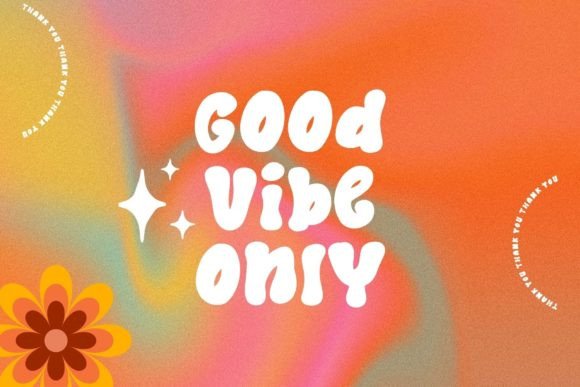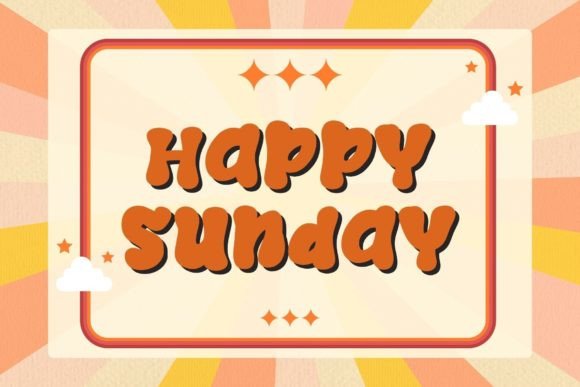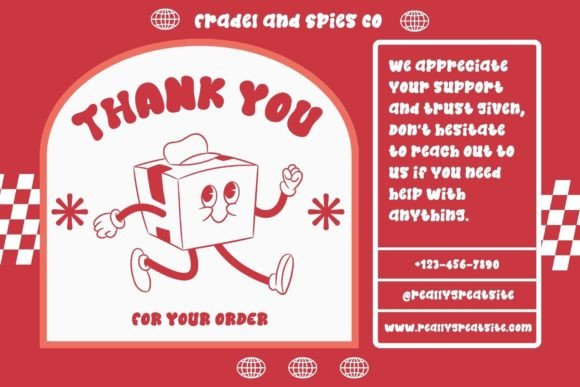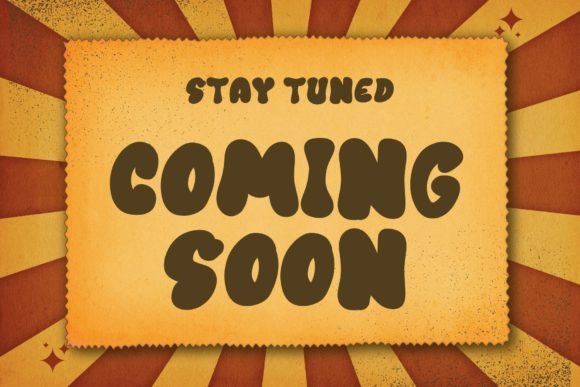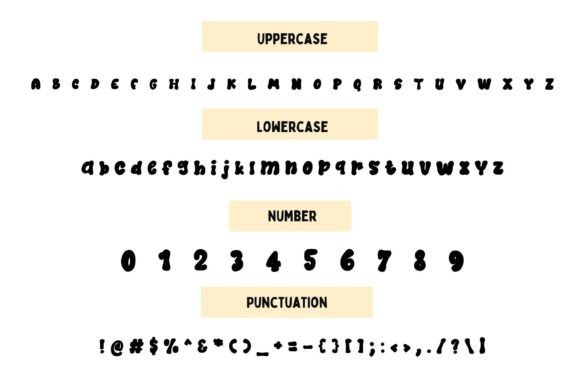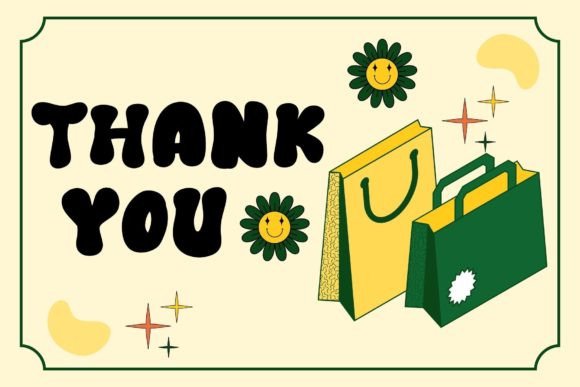
Introduction to Retro Black Font
Do you remember the excitement of digging through your parent’s attic and discovering old records, posters, and vintage magazines? For designers, it’s that same feeling of nostalgia and creativity that drives us to find the perfect font for our next project. And, trust us, we’ve found it – the Retro Black Font is a true gem that will transport your designs back to the groovy days of the past.
This cool, retro display font is more than just a design element – it’s a statement piece that can elevate any creative project from basic to brilliant. Whether you’re working on an invitation, postcard, poster, or social media campaign, the Retro Black Font is the perfect addition to make your design stand out. With its high-quality design and transparent background, it’s a valuable resource for any designer looking to add some retro flair to their work.
Key Features of Retro Black Font
- Unique, distressed design aesthetic perfect for creative projects
- Transparent background for easy integration into various designs
- Perfect for adding a touch of nostalgia and elegance to your designs
Honest Review: Retro Black Font
I recently stumbled upon the Retro Black Font and I must say it’s a great addition to any creative project. The font has a unique, vintage feel that can instantly elevate your designs. I particularly love how versatile it is – it works well for both digital and print projects.
Here are some of the things that work well with the Retro Black Font:
- ✨ High quality design: The font is crisp and clear, making it perfect for any design project.
- ✨ Versatility: As I mentioned earlier, the font is perfect for both digital and print projects.
- ⚠️ Limited character set: The font only includes a limited character set, which may not be suitable for projects that require a wide range of characters.
- ⚠️ Not suitable for transparent backgrounds: The font may not work well with transparent backgrounds, so be sure to test it out before using it in your design.
Overall, I’m really impressed with the Retro Black Font. It’s a high-quality design resource that’s perfect for any creative project. With its unique, vintage feel and versatility, it’s a great addition to any designer’s toolkit.
Retro Black Font
Use the Retro Black Font in bold and italic styles to add depth and emphasis to your design. Experiment with different font sizes and combinations to create a unique look. Use the font in conjunction with other design elements, such as graphics and images, to create a visually appealing design.
The Retro Black Font is commonly used in creative projects such as graphic design, logo creation, and typography. It’s also great for creating high-quality designs for social media, websites, and print materials. With its high-quality and transparent background, the Retro Black Font is a versatile design resource that can be used in a variety of applications.
Alternatives to Retro Black Font
1. Arial Rounded MT Bold
Arial Rounded MT Bold is a classic sans-serif font suitable for creative projects requiring a modern yet approachable look. It’s ideal for use in logos, titles, and headings, especially when paired with a transparent background. When to use: For modern and creative projects where a bold yet approachable font is required. How it compares to Retro Black Font: Unlike Retro Black Font, Arial Rounded MT Bold has a more rounded and modern look, making it a great alternative for contemporary designs.
2. Signika Negative
Signika Negative is a sans-serif font designed for high-quality designs that require a bold and modern look. It’s a great design resource for creating eye-catching titles and headings, especially when used with a free download or a paid subscription. When to use: For modern and creative projects where a bold and modern font is required. How it compares to Retro Black Font: Signika Negative has a more modern and sleek look compared to Retro Black Font, making it a great alternative for contemporary designs.